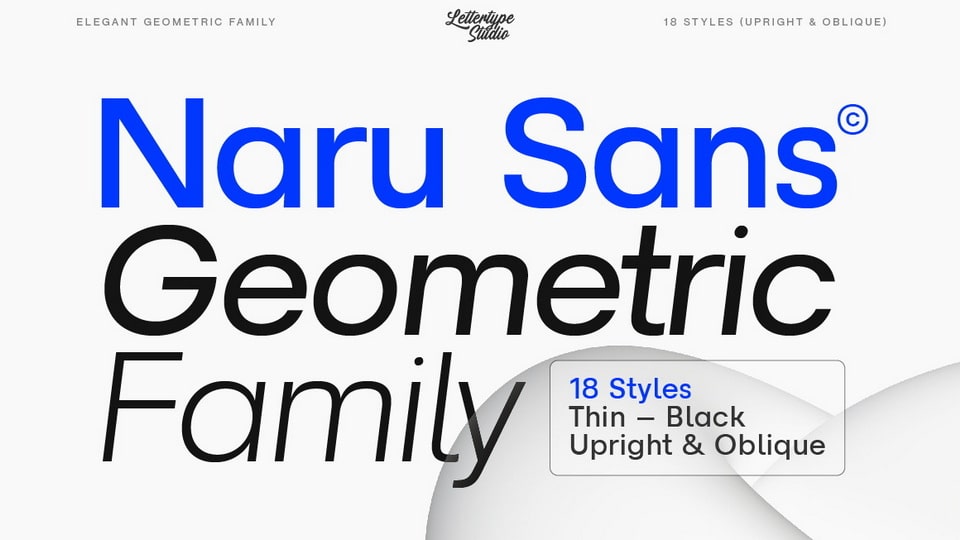
Download Naru Sans font, a modern and versatile sans-serif geometric typeface infused with subtle grotesque elements, that delivers simplicity and natural while exuding a strong personality with refined proportions.
Designer: Lettertype Studio